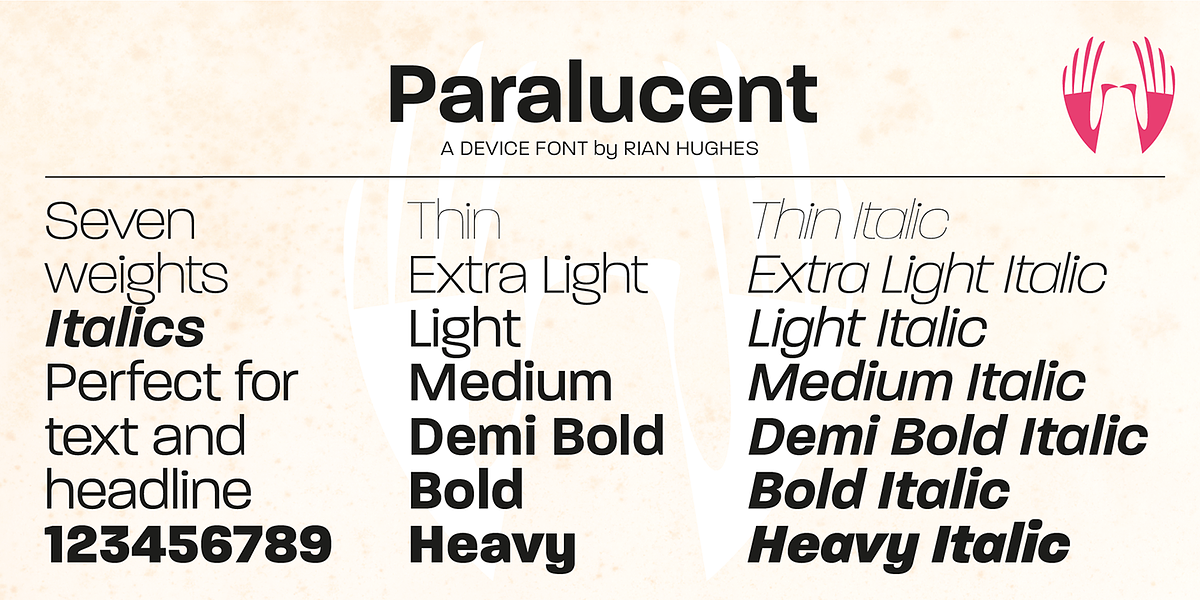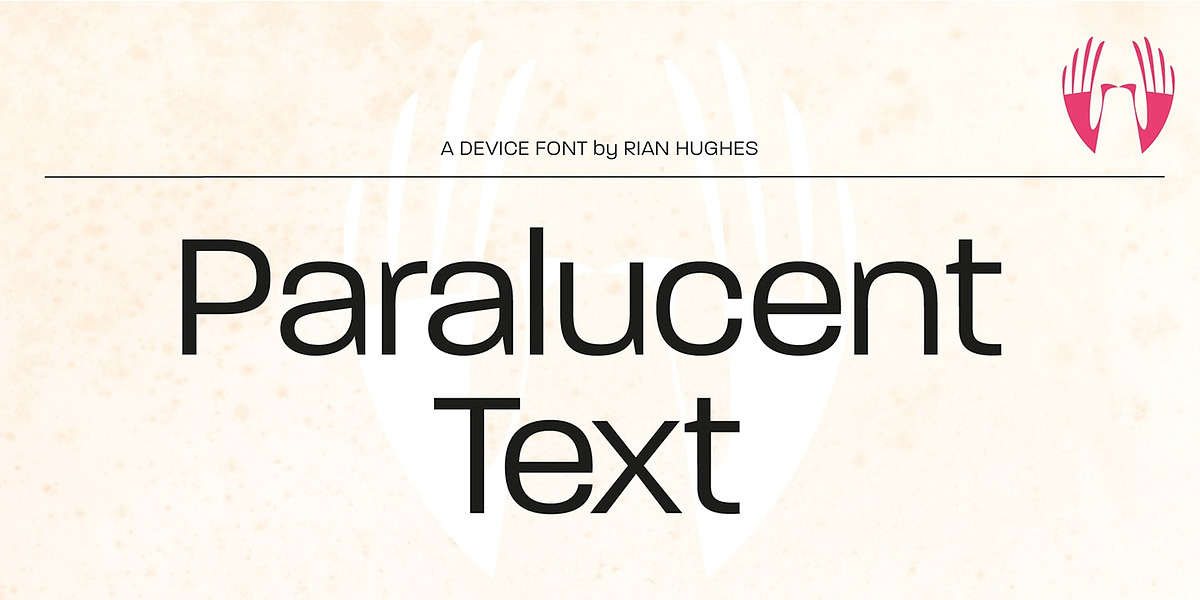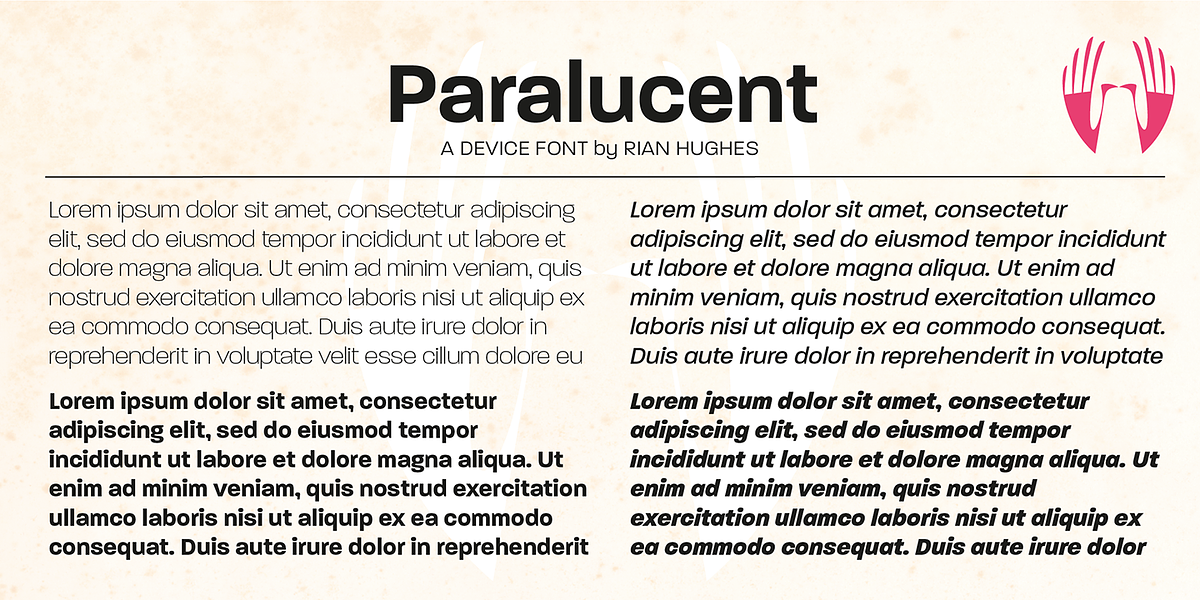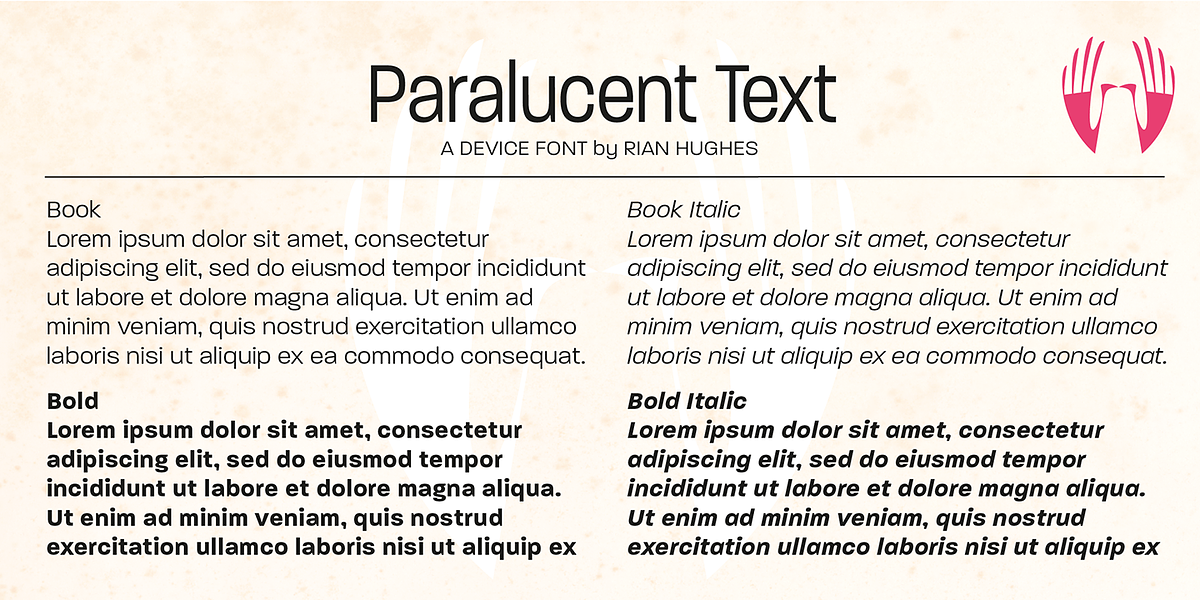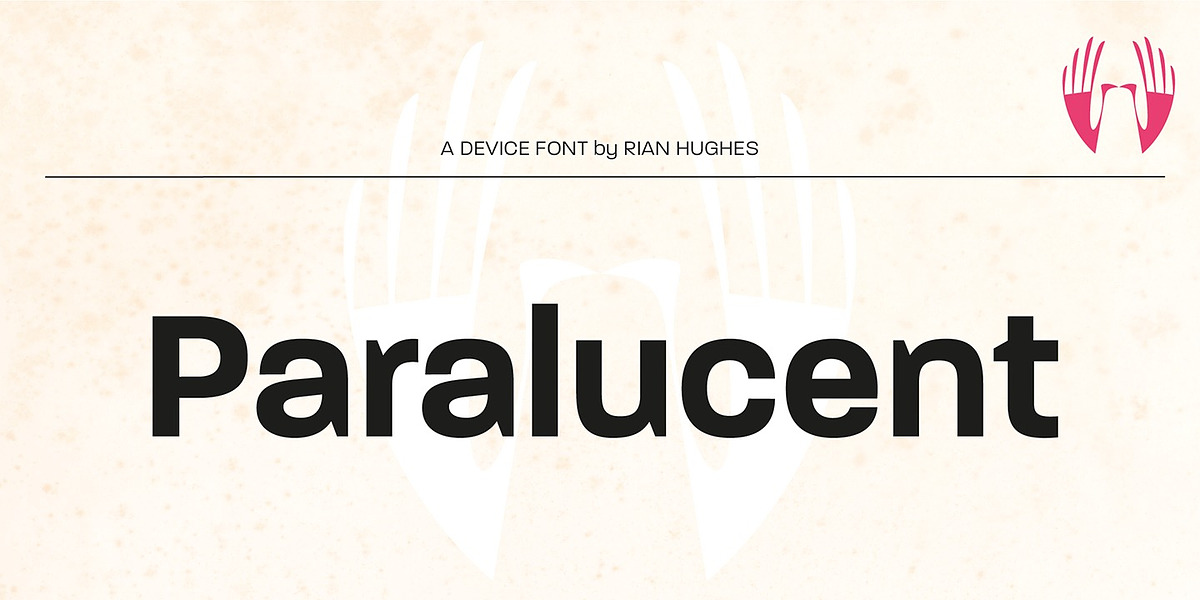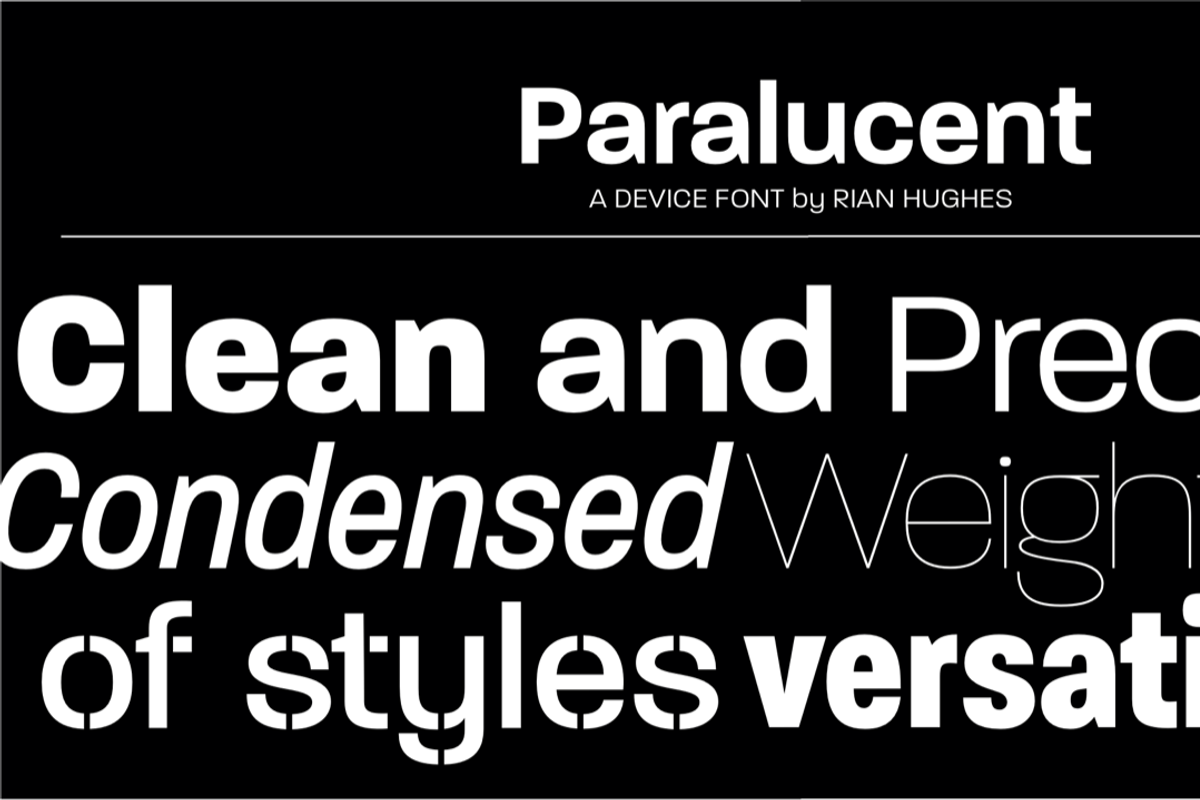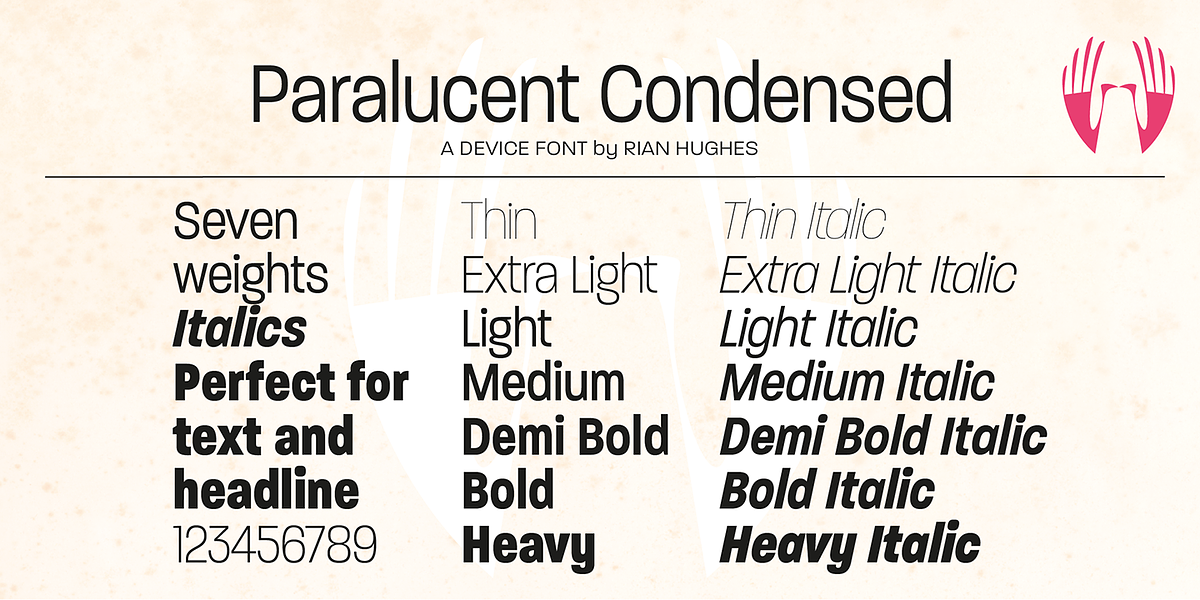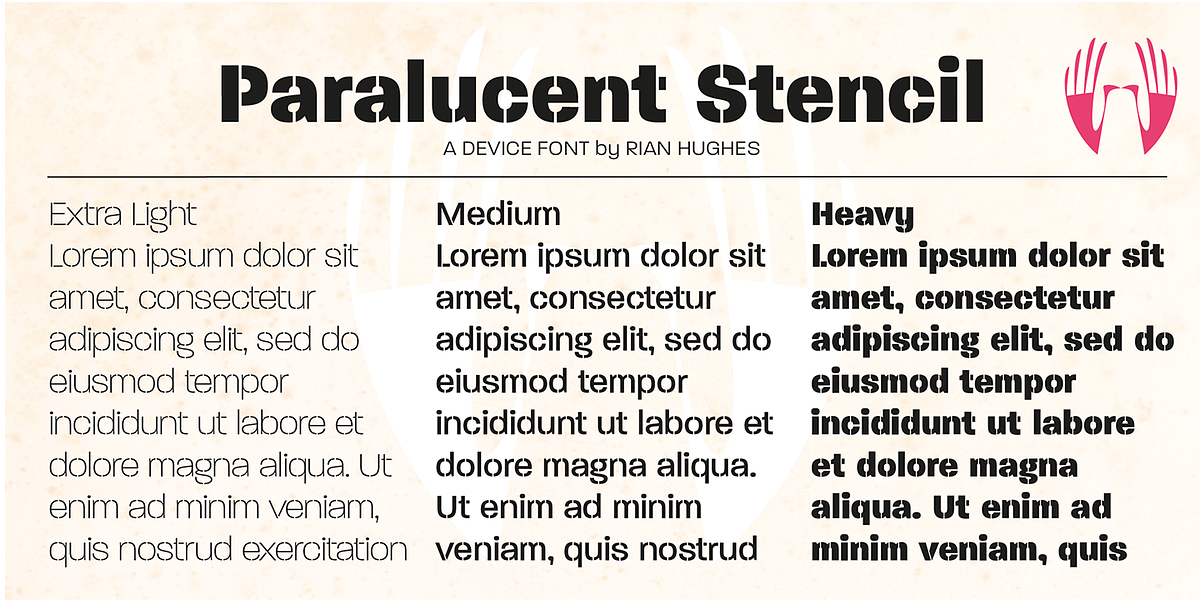
Paralucent
Paralucent is a modern sans-serif font designed to be versatile and suitable for a wide range of applications. It takes inspiration from classic sans-serifs like Univers and Helvetica but distinguishes itself with warmer features and an emphasis on even color distribution within the typeface. The design incorporates several thoughtful adjustments, such as shorter arms on letters like J, L, and T, and a lower bar on the A to create a more balanced visual appearance.